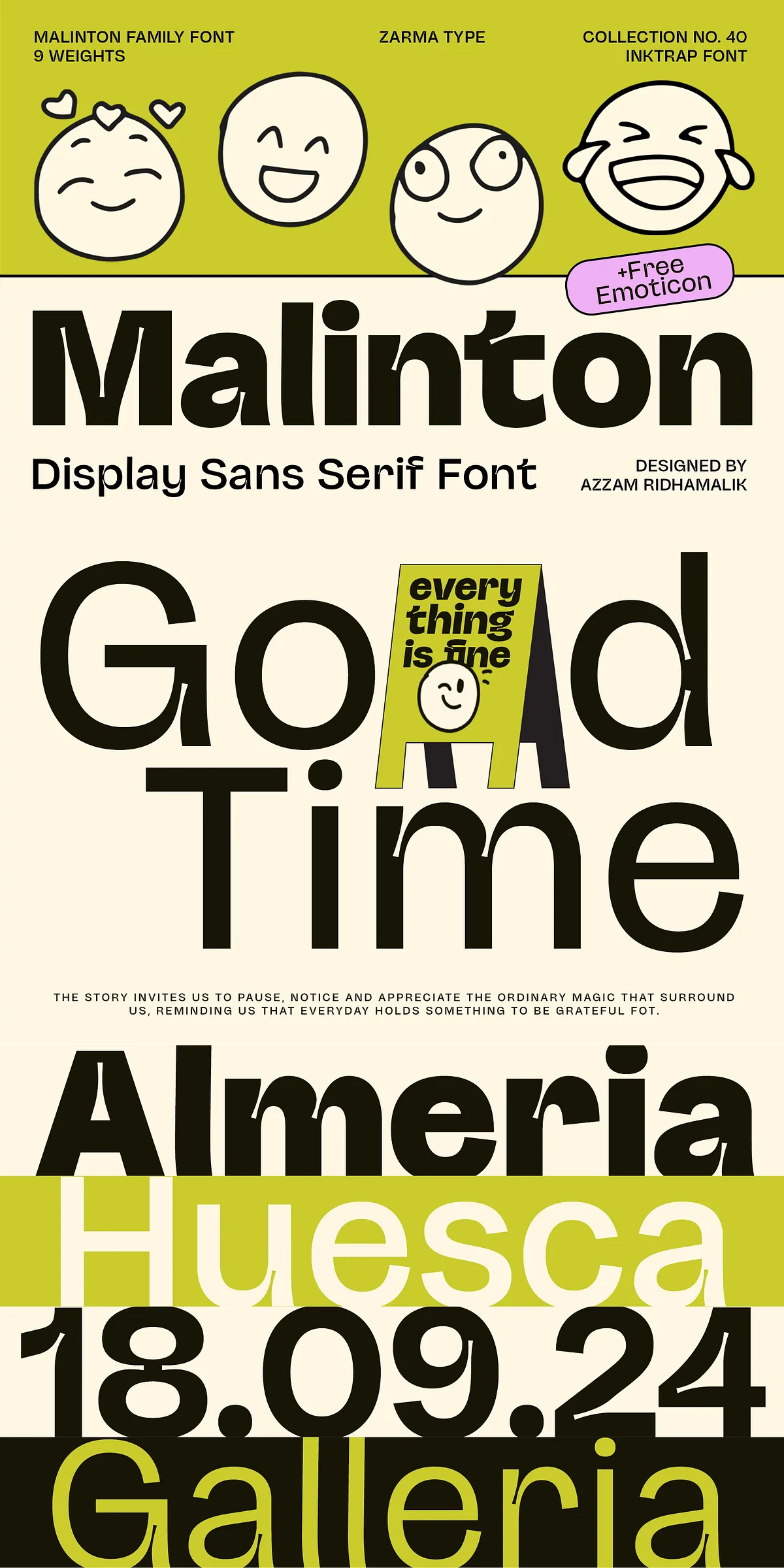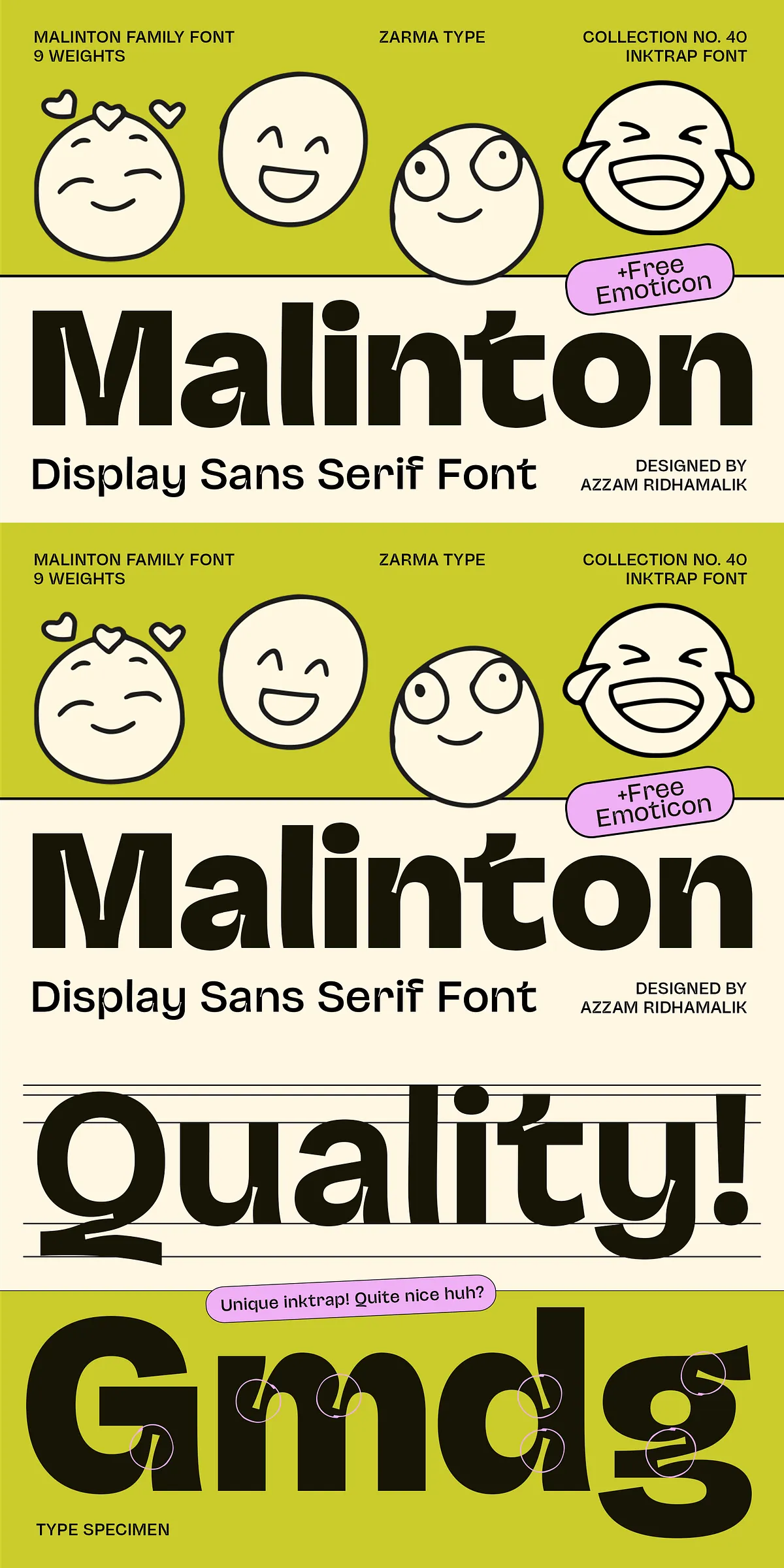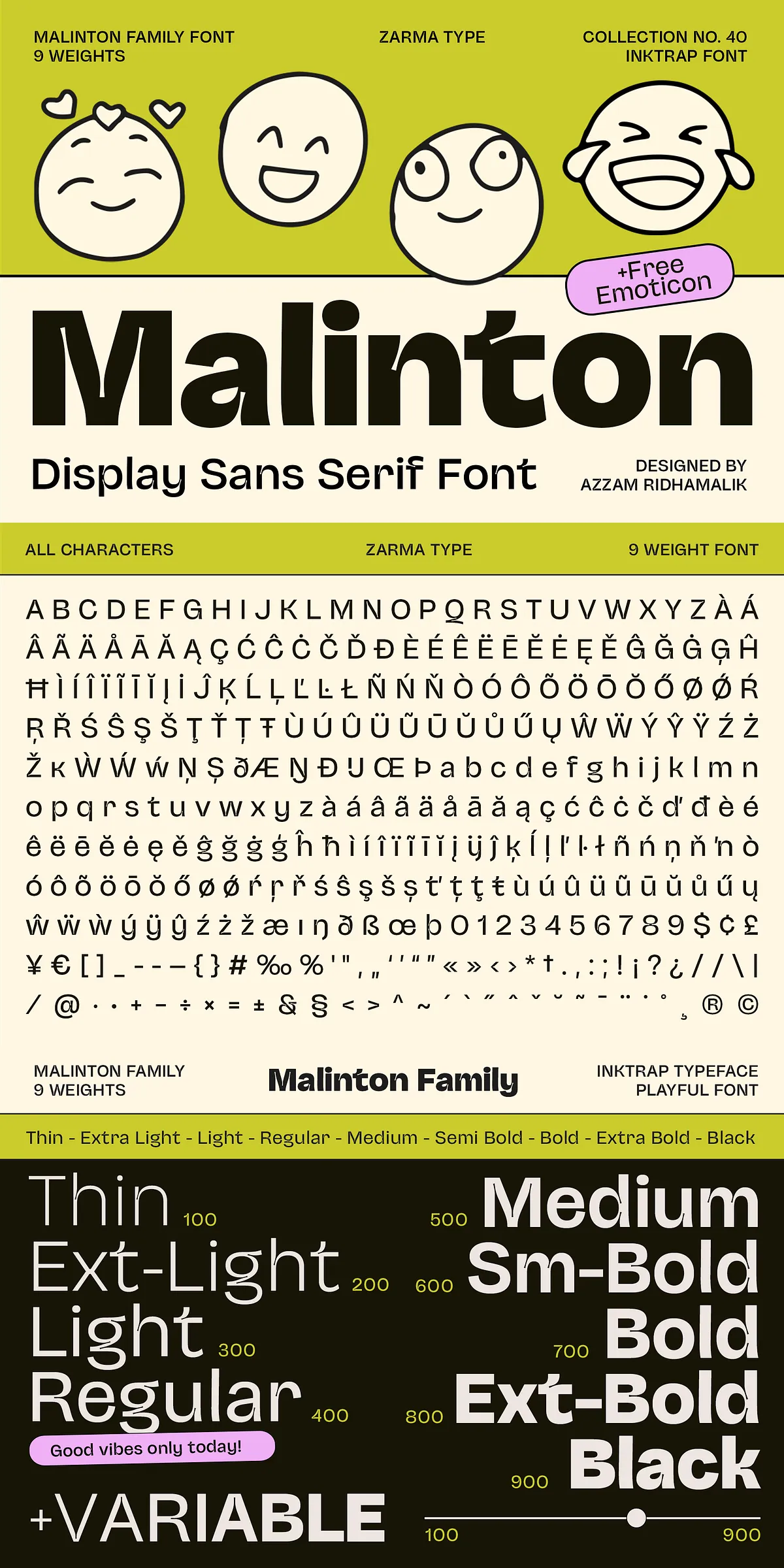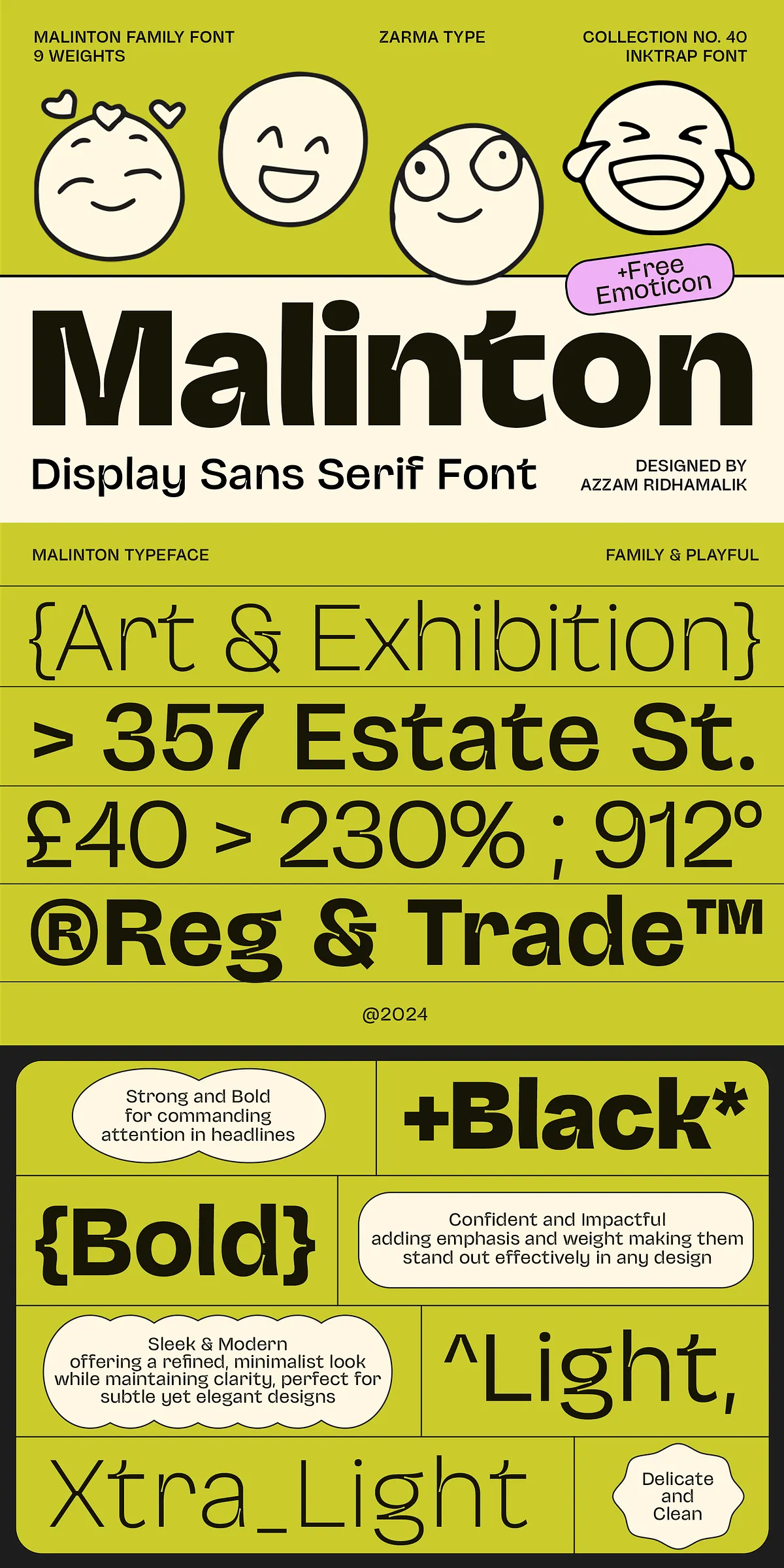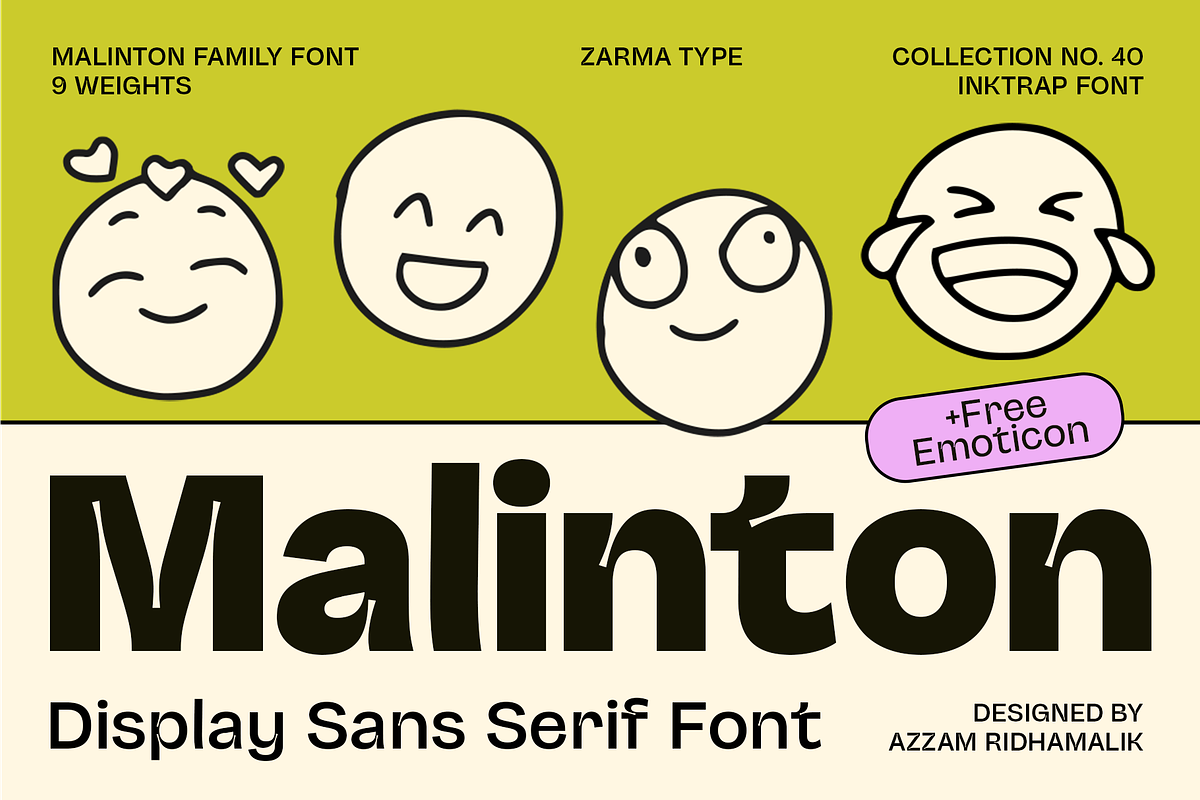
Meet Malinton, the display sans serif font family that doesn’t just convey text — it communicates mood, energy, and character. More than a font, Malinton is a creative catalyst. With nine distinct weights—from delicate Extra Light to powerful Black—you have the full spectrum of typographic expression at your fingertips. Whether you’re crafting a joyful social media post, a bold brand headline, or a serious editorial statement, Malinton adapts instantly, delivering impact with precision.
Bold Personality, Refined Structure: The Malinton Advantage
Malinton is engineered to stand out without sacrificing clarity. Its clean, modern sans-serif form ensures excellent readability at any size, while its unique inktrap design and slight humanist curves inject warmth and personality into each letter. This blend of professional structure and friendly flair makes Malinton the ideal bridge between high-energy creativity and polished presentation.
But what truly sets Malinton apart? Its playful emoticon alternates. Yes — you can insert a cheeky smiley face or a winking emoji directly into your text, all as part of the font. No more relying on separate emoji libraries or awkward symbols. Malinton brings emotion straight into your typographic design, making it perfect for branding, content marketing, and digital storytelling.
Full Creative Control with OpenType & Variable Font Power
Malinton is built for the modern designer. It leverages OpenType features and variable font technology to give you unprecedented control. Adjust weight, width, and optical size with a single slider in your design software. No need to load multiple font files — one file handles it all, speeding up your workflow and simplifying your project setup.
Use features like:
- Stylistic Alternates: Swap out characters for unique variations to create custom typography.
- Contextual Ligatures: Improve connection and flow between letters for smoother, more readable text.
- PUA Encoded Characters: Access additional symbols and custom glyphs beyond basic Unicode.
- Extended Latin Support: Includes special characters for European and Latin-based languages.
- 80+ Languages Supported: Build multilingual campaigns with confidence — from Dutch and Norwegian to Polish and Portuguese.
Designed for a World That Demands Expression
Malinton thrives in fast-paced, visually driven environments. It’s the perfect choice for:
- Brand Identities & Logos: Create memorable, expressive brand assets that resonate emotionally with audiences.
- Social Media Graphics: Make your posts pop with dynamic text, emoticon integration, and bold visual hierarchy.
- Editorial Design: Use alternating weights to guide readers through articles, headlines, and pull quotes.
- Website Headers & Call-to-Action Buttons: Command attention with clear, expressive typography that drives engagement.
- Print & Packaging Projects: Add personality to business cards, posters, and product labels.